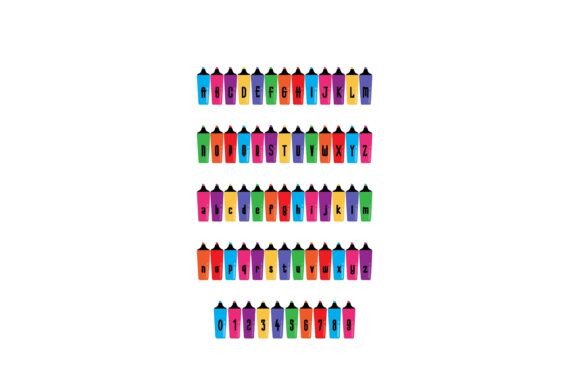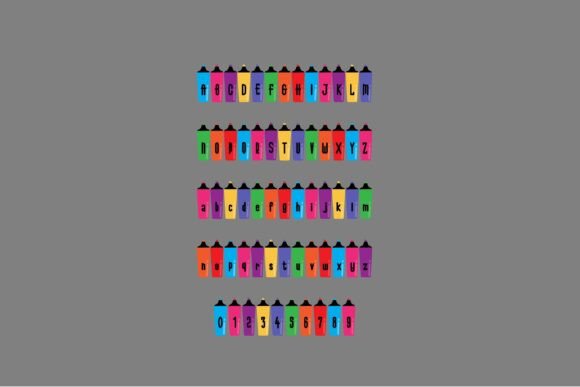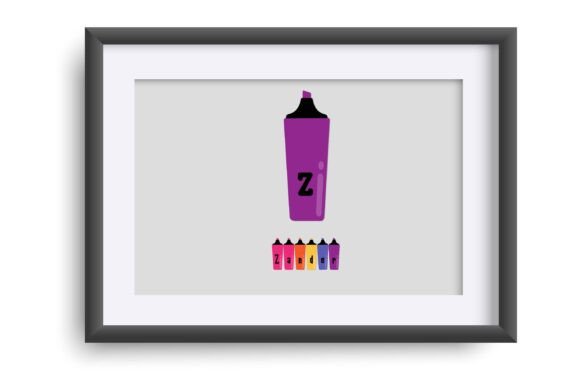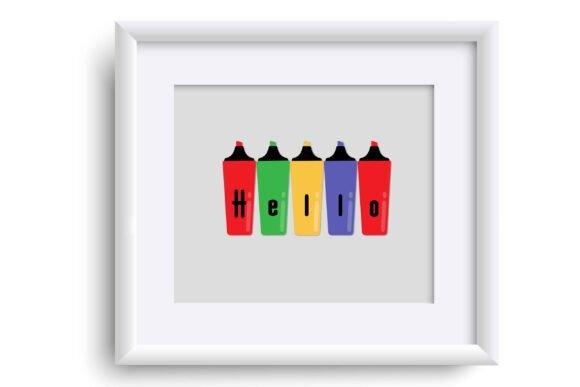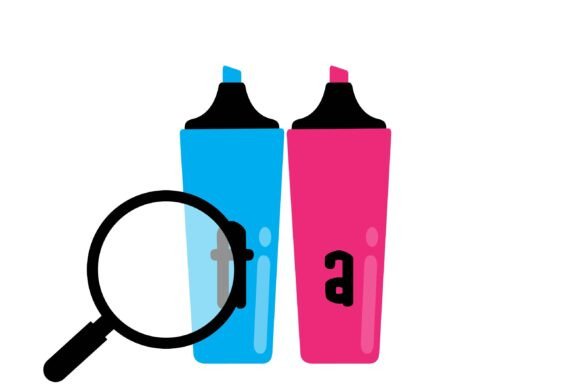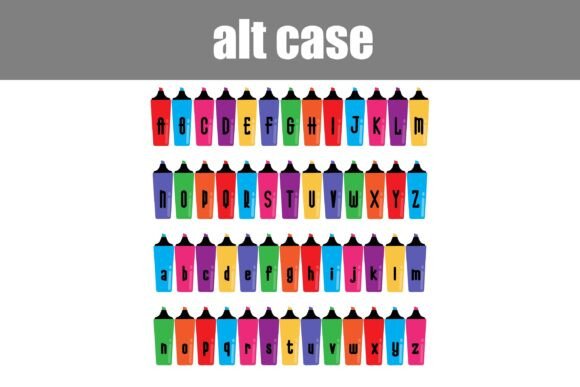
Discover the Magic of Looking Remarkable Font
Have you ever stared at a blank page, marker in hand, waiting for the perfect spark to ignite your creative project? For designers, this moment is all too familiar. But what if you could bring that same playful energy to your digital designs? Enter the Looking Remarkable Font, a whimsical, full-color font that’s about to revolutionize the way you approach typography.
With its vibrant, marker-inspired aesthetic, this font is a design resource like no other. Not only does it offer a range of high-quality, transparent backgrounds, but it also allows for seamless integration into your existing design workflow. Whether you’re working on a free download or a commercial project, the Looking Remarkable Font is the perfect addition to your toolkit.
Key Features of Looking Remarkable Font
- Unique and stylish font with a transparent background, perfect for adding a touch of elegance to your designs.
- Includes 5 styles: Regular, Italic, Bold, Bold Italic, and Outline, providing flexibility for various design needs.
- Perfect for use in various creative projects, including logos, brochures, business cards, and more.
Honest Review: Looking Remarkable Font
As a designer, I’m always on the lookout for high-quality design resources to elevate my creative projects. Recently, I stumbled upon the Looking Remarkable Font, and I’m excited to share my honest review.
Here’s what works well:
- ✨ High-quality design: The font is sleek, modern, and visually appealing, making it perfect for any design project.
- ✨ Transparent background: The font is designed with a transparent background, making it easy to layer and customize.
- ⚠️ Limited character set: The font only includes a limited character set, which may not be ideal for projects that require a wide range of characters.
- ⚠️ Not suitable for large-scale projects: While the font is great for small-scale projects, it may not be the best choice for large-scale projects that require a more comprehensive font.
Overall, I’m impressed with the Looking Remarkable Font. While it has its limitations, it’s a great resource for designers who want a high-quality, modern font for their creative projects.
Getting the Most Out of Looking Remarkable Font
For high-quality results, use the Looking Remarkable Font on a transparent background. This will allow you to easily layer the font over other design elements.
The Looking Remarkable Font is ideal for creative projects that require a high-quality, unique font. Some common use cases include: branding, marketing materials, and social media graphics.